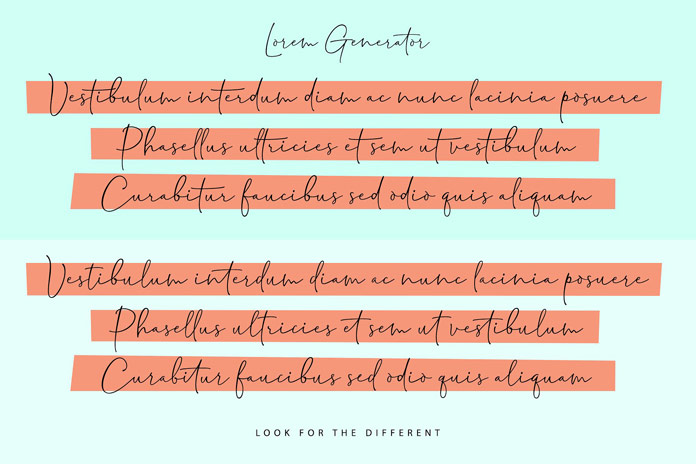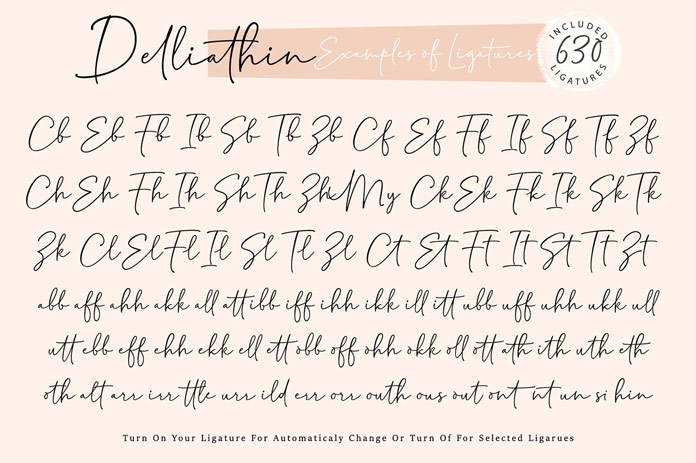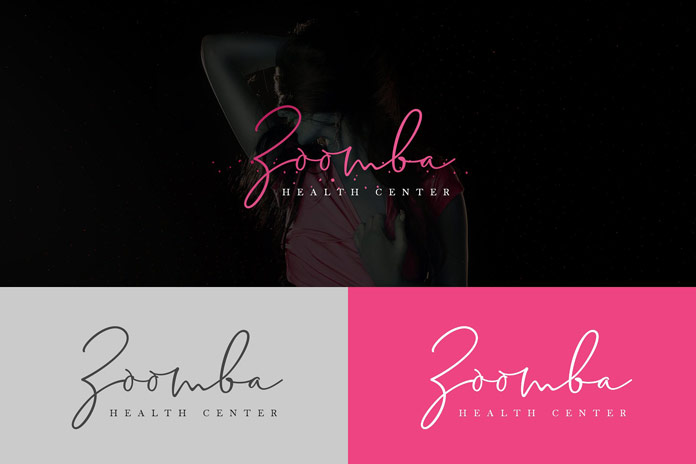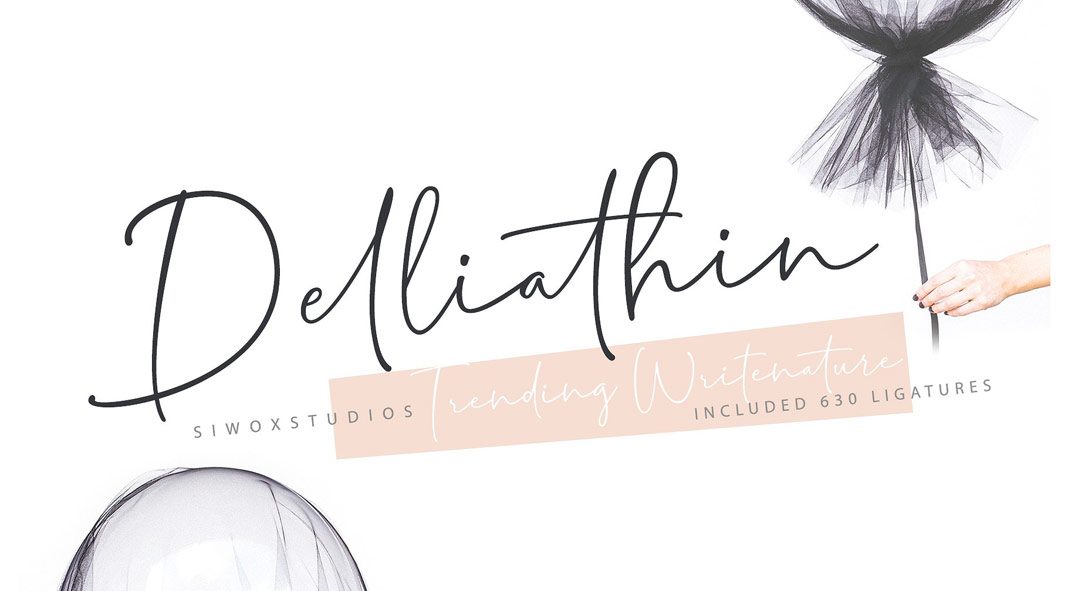
Delliathin, an elegant, hand-drawn signature font from Siwox Studios.
Designed and published by Siwox Studio, Delliathin is an elegant handwritten script font. With current typographic trends in mind, this new script font has been created for multiple purposes such as branding, logo design, print and web design. Delliathin has been equipped with 630 ligatures consisting of 94 special ligatures and 536 standard ligatures as well as a set of lowercase alternates. Just have a look at the images below to see some examples. For further information, please click on the following link.